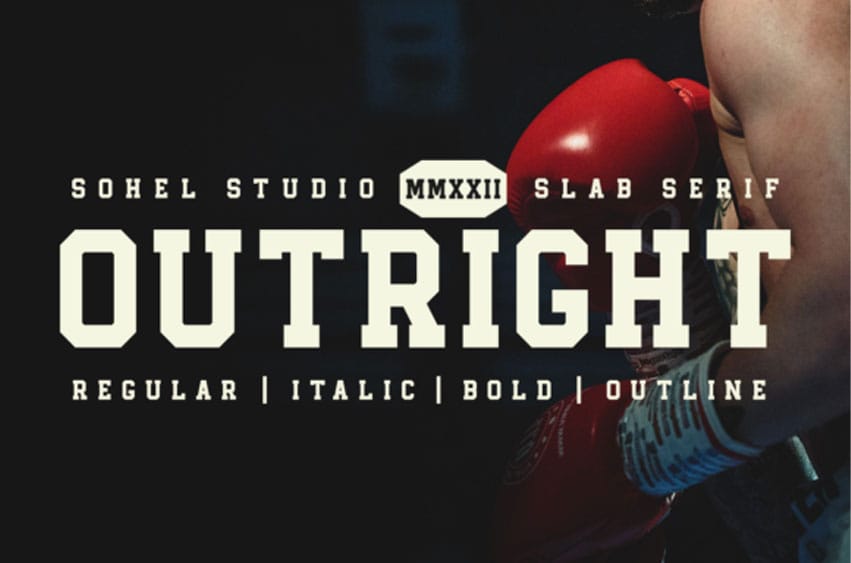
Outright Font is a sporty and vintage-style slab serif.
This font reads as strong, confident, and dynamic, and it works great for various designs that are related to athletic events.